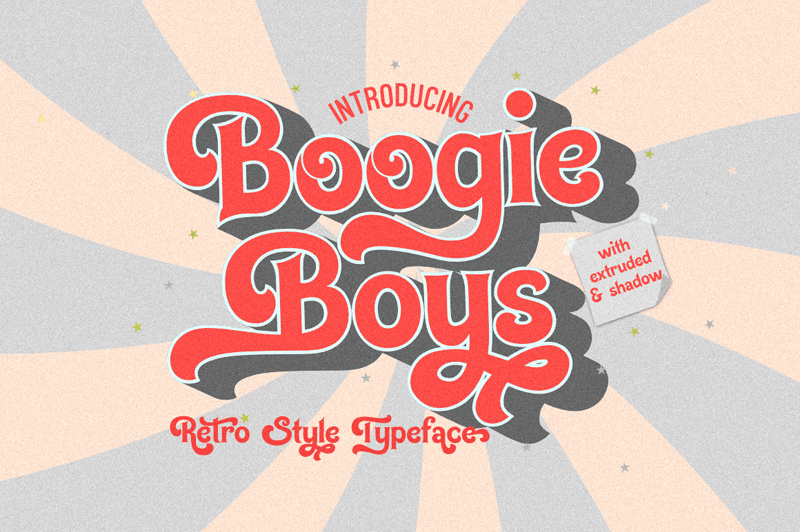
Boogie Boys has three layers to use as 3D effect, but it also stunning if you only use the regular one. This font version is free for personal use only, no commercial use are allowed. The commercial use and full version can be found in here: https://www.creativefabrica.com/product/boogie-boys/ref/185557/ https://unatype.com/product/boogie-boys/ You can hit the donation button if you want, every donation are very appreciated, thank you :) |